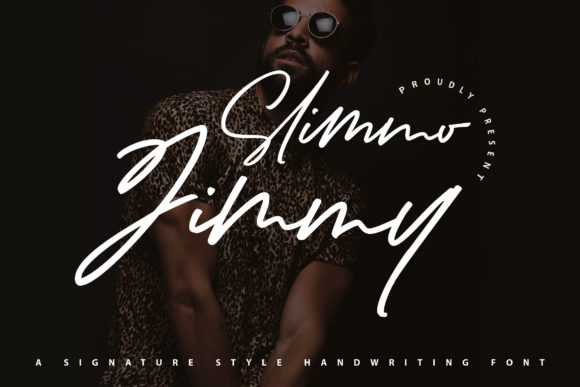
About Slimo Jimmy Font
Slimo Jimmy is a stylish and delicate script font. It has a clean, thin and smooth vibe and it will be a hit for any design that you want to add it to.